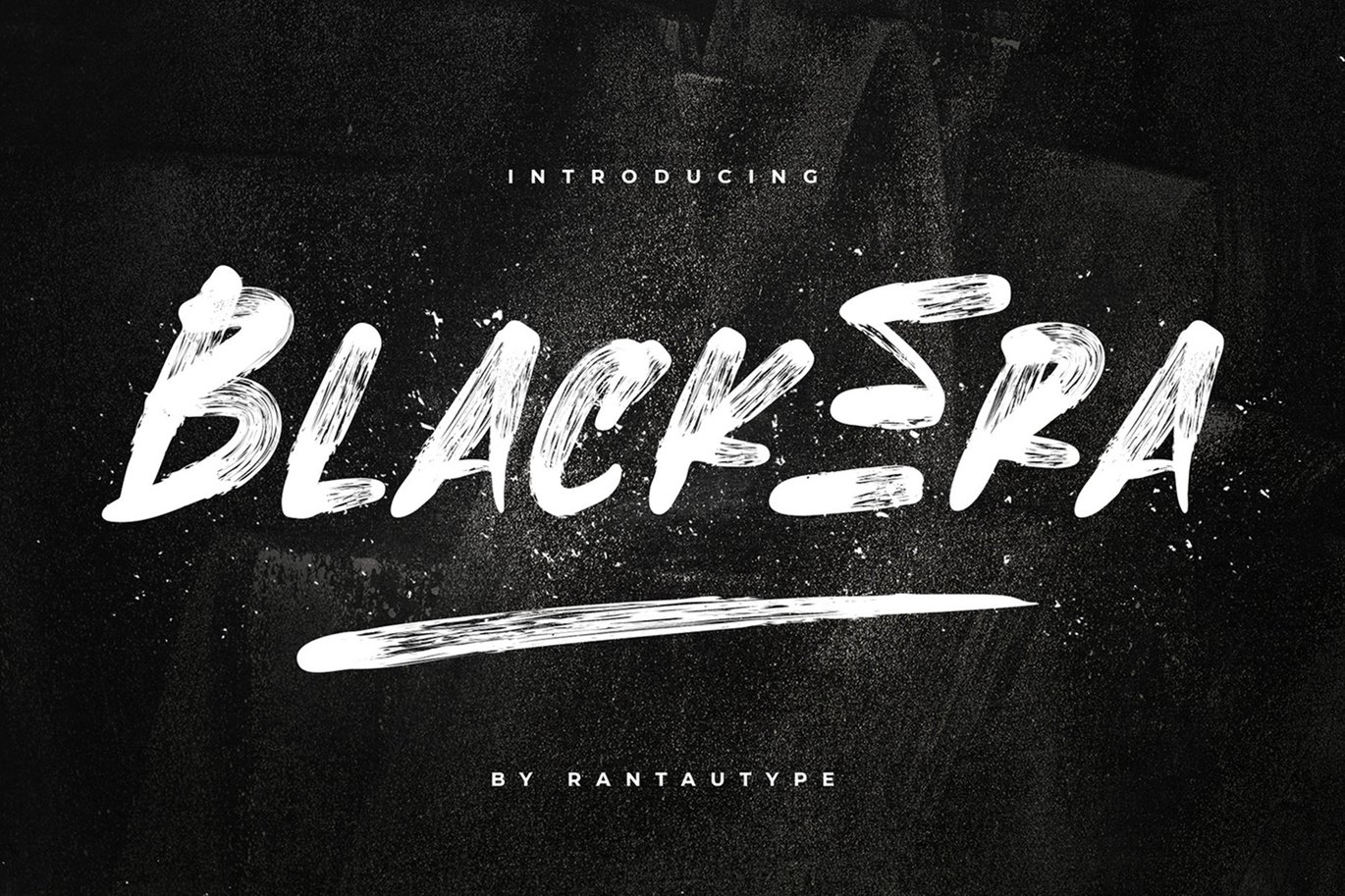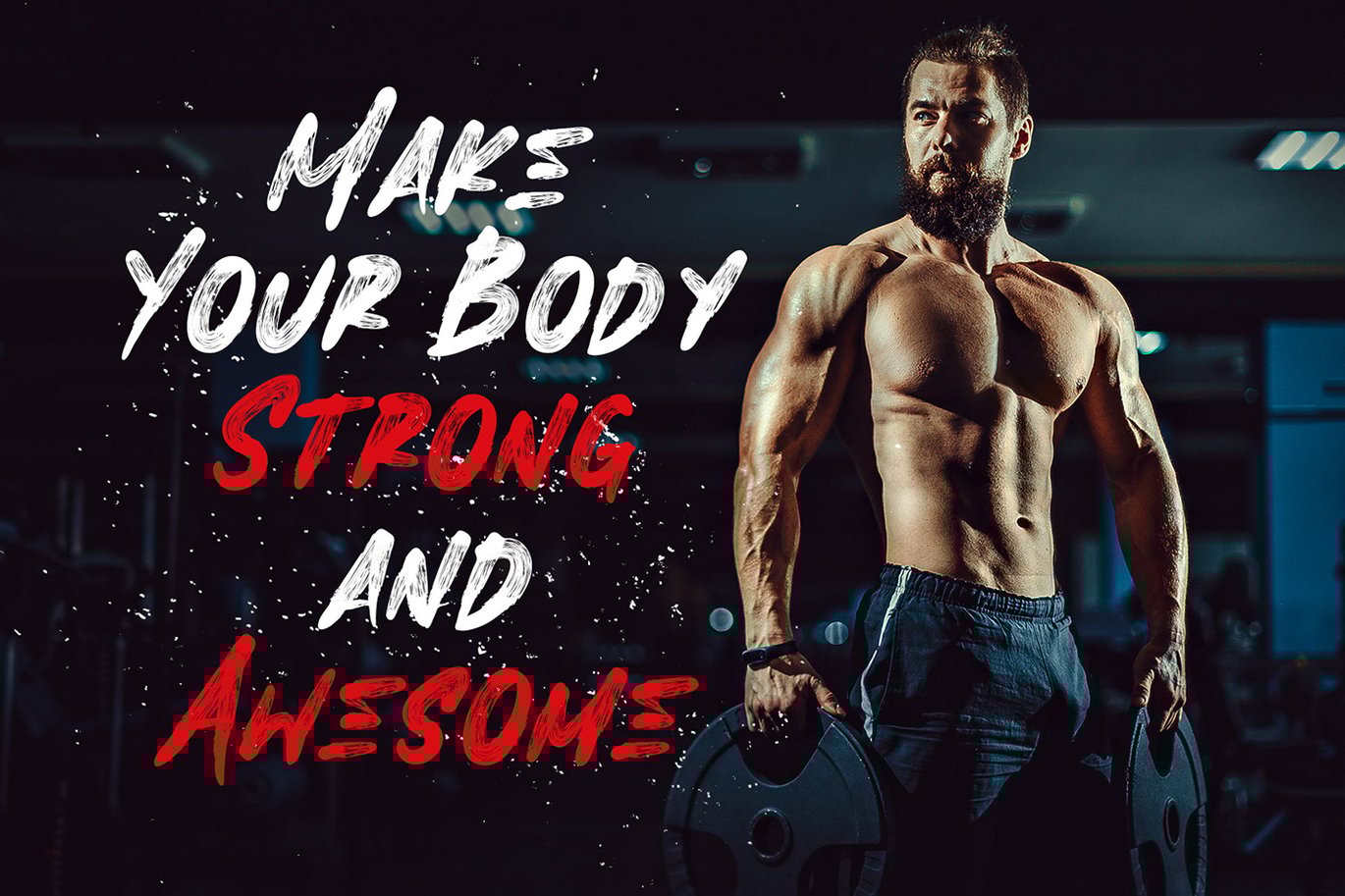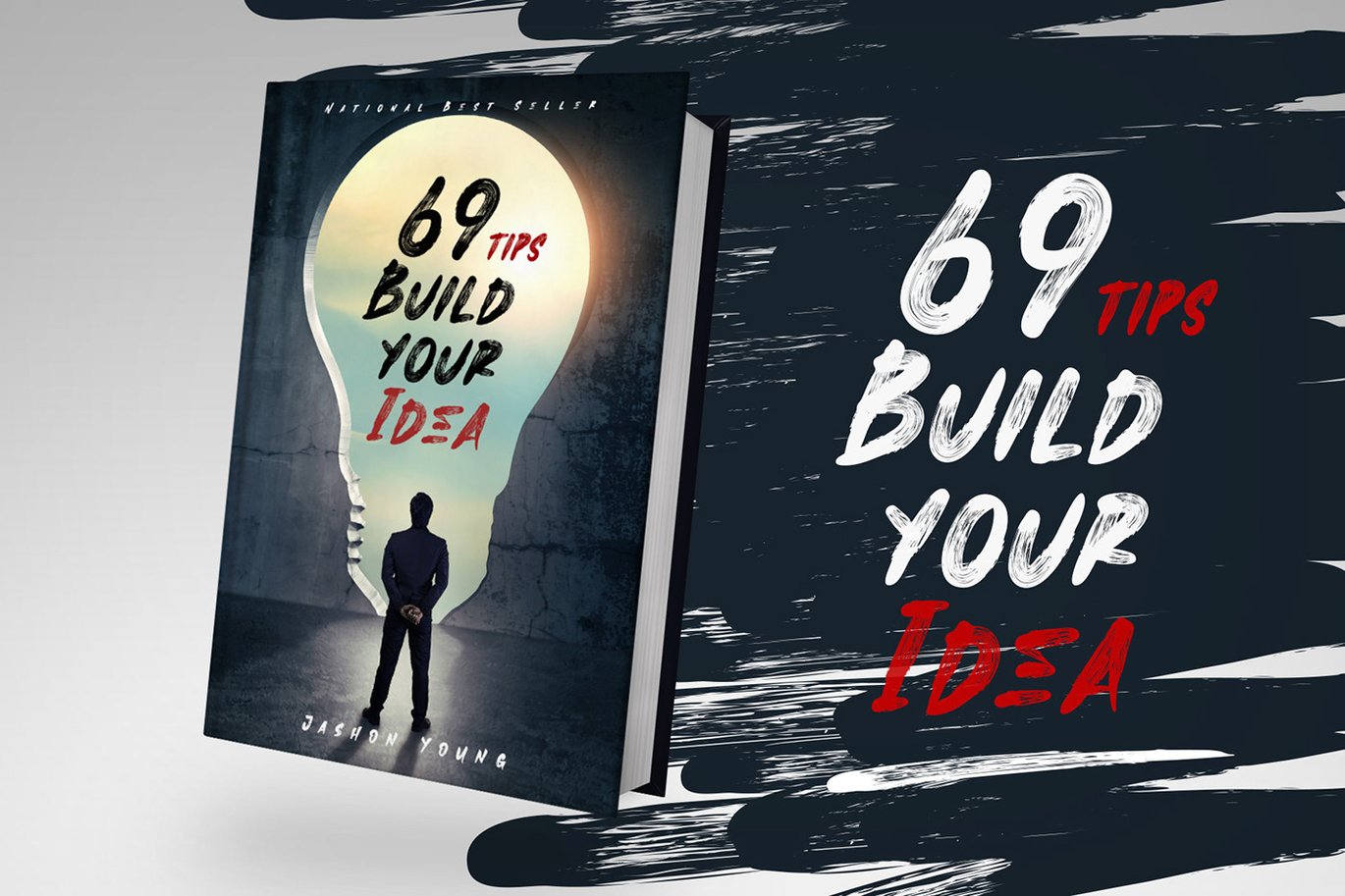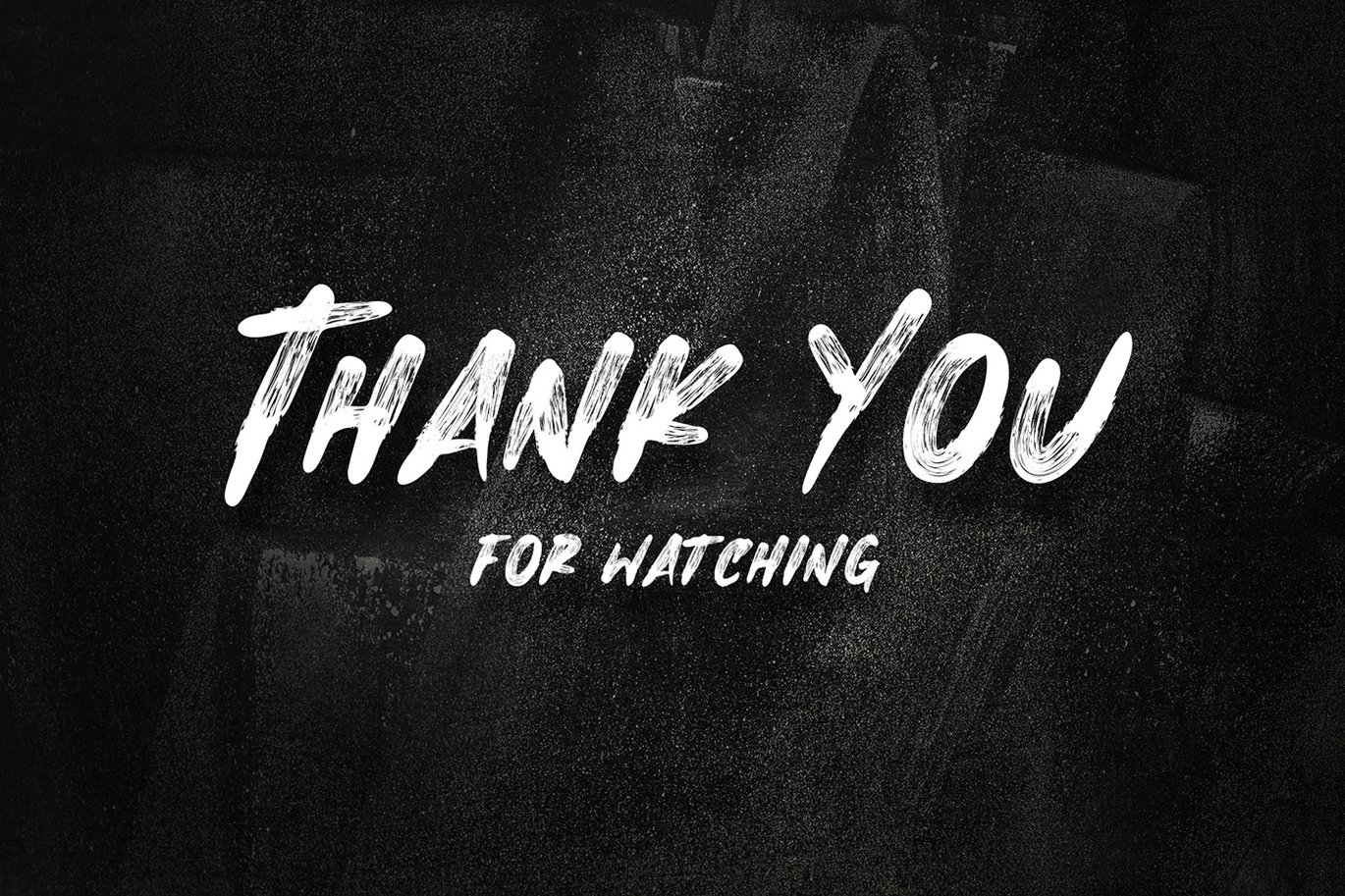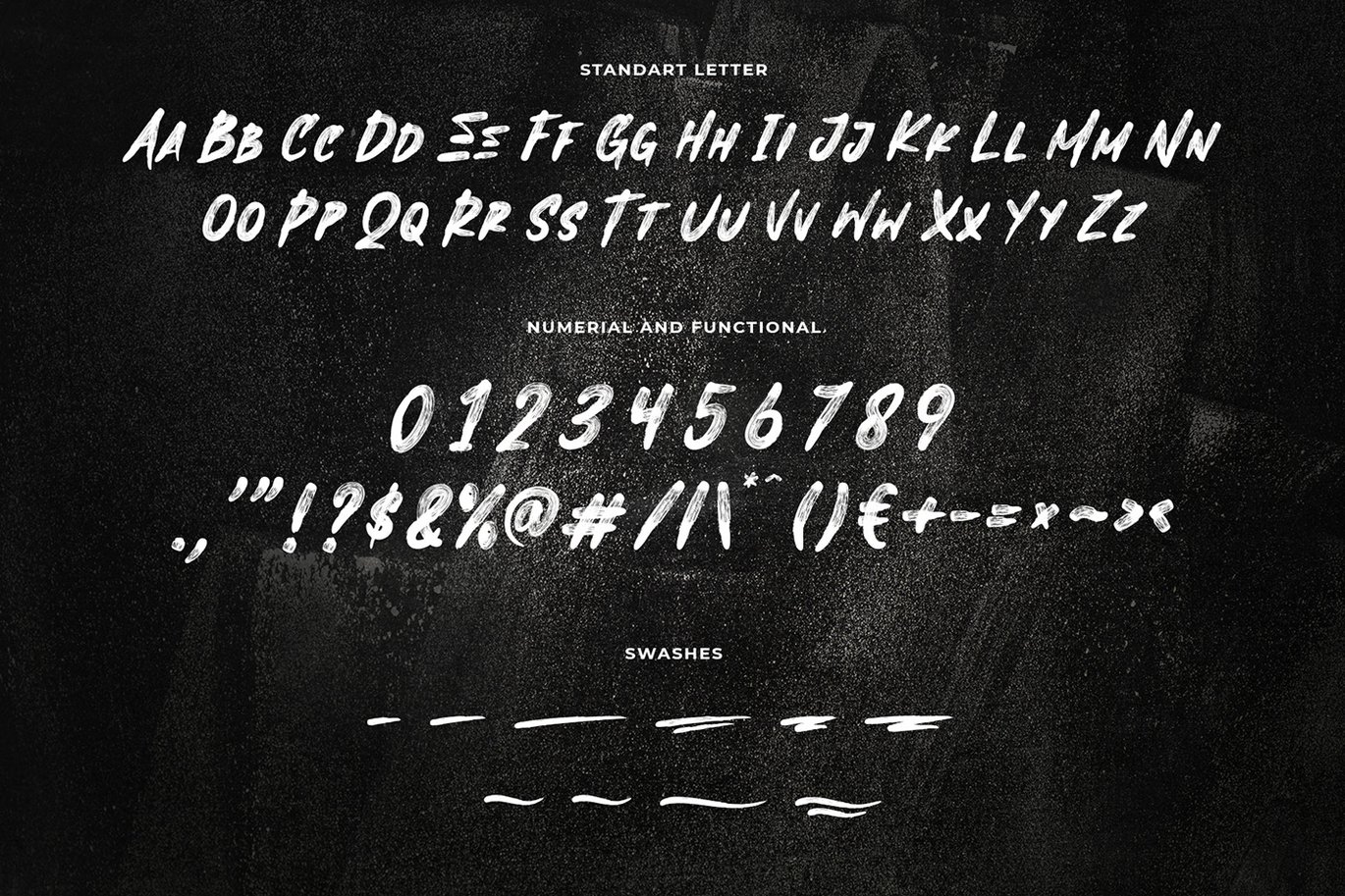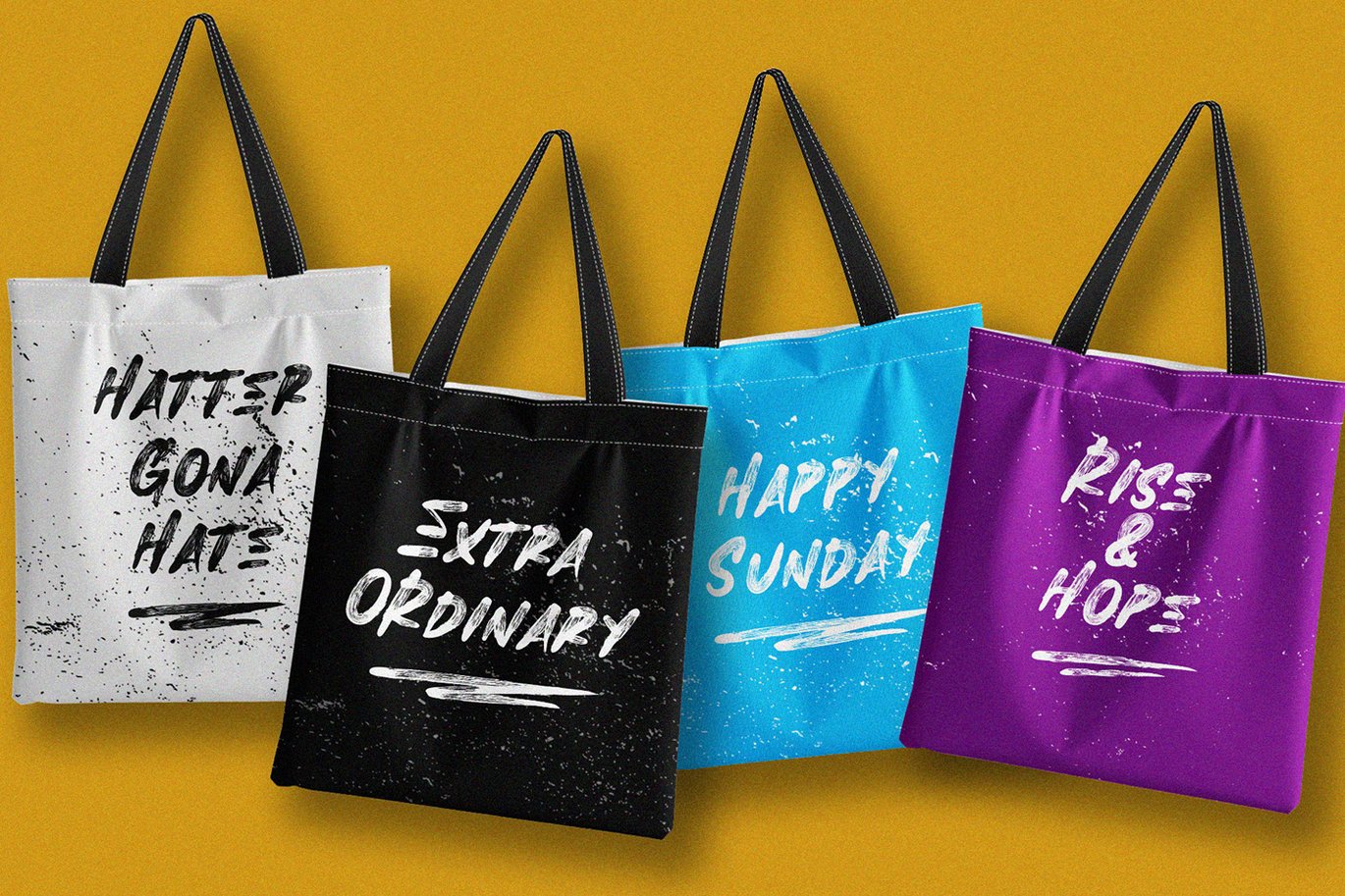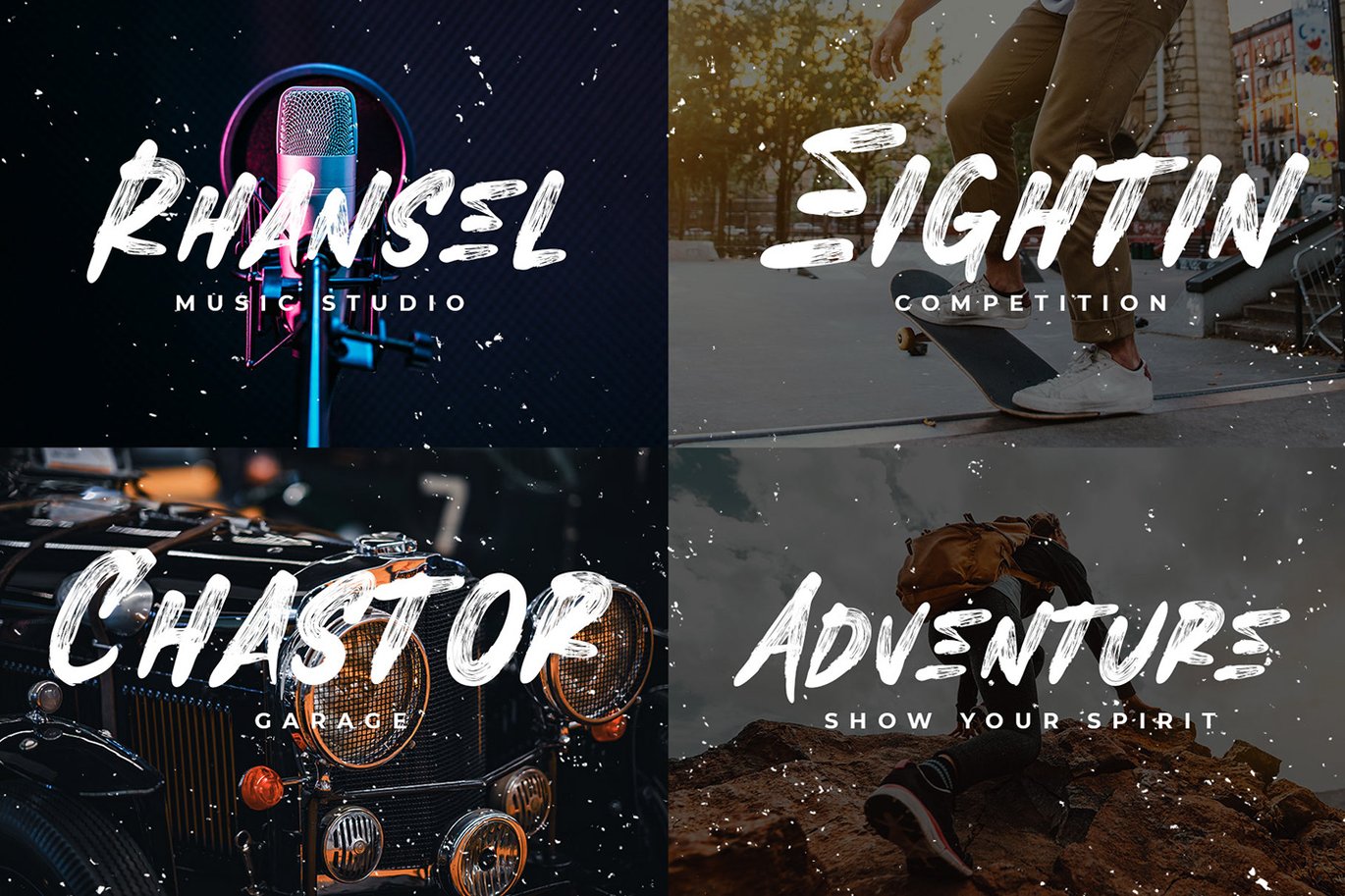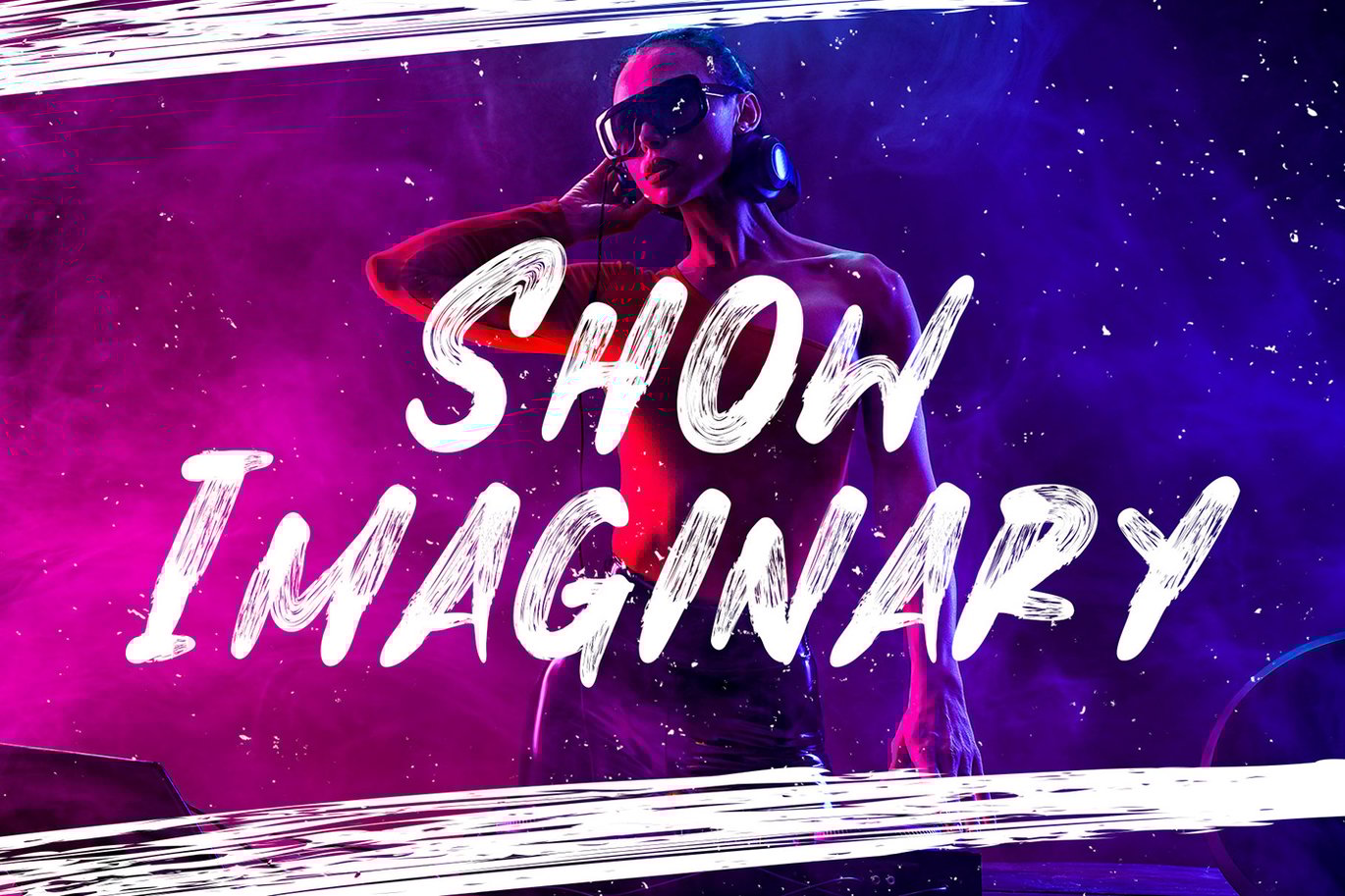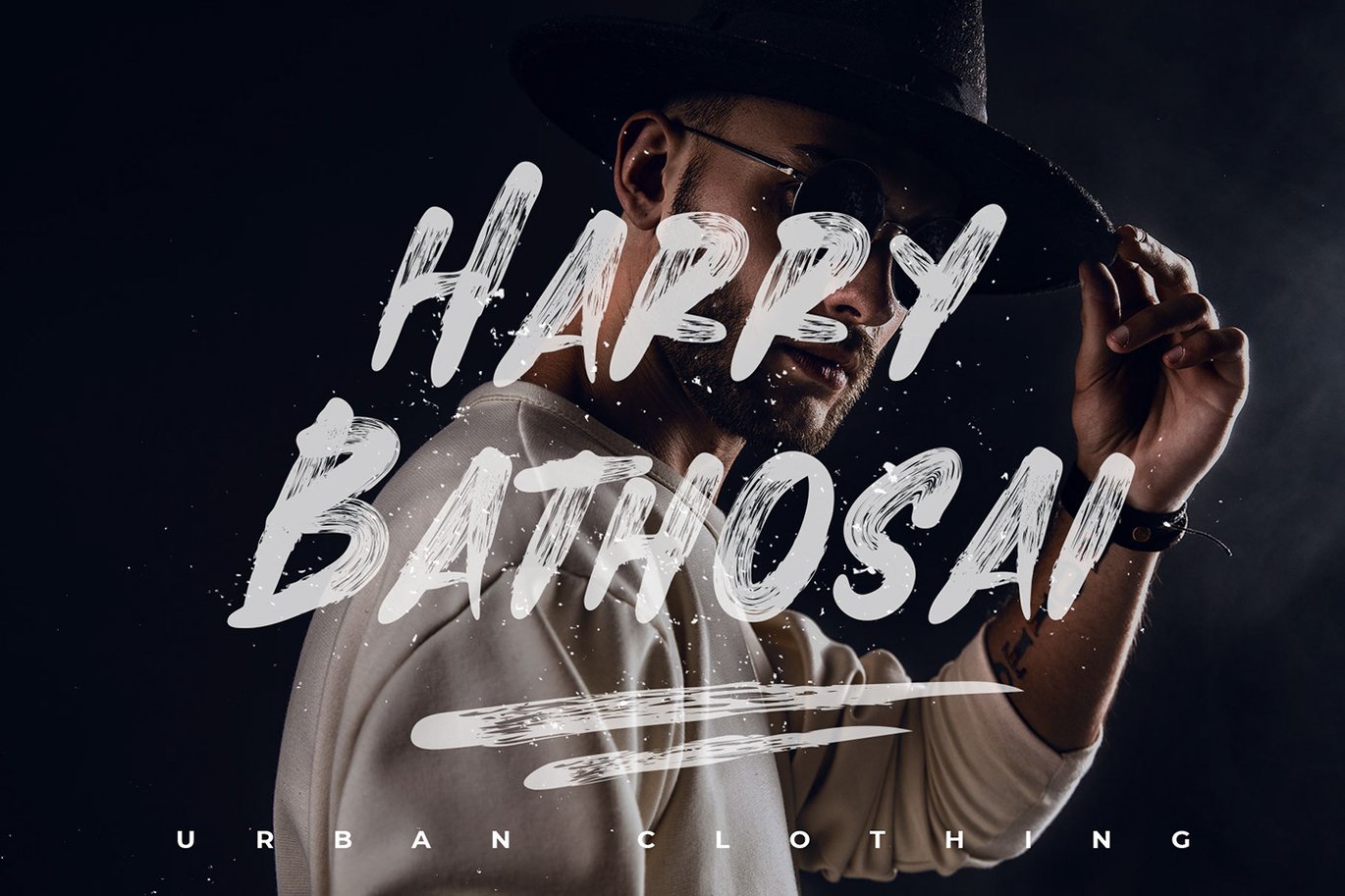
Black Era Brush Font
Proudly present  brush  font “BlackEra”.
This font is authentic hand brush imperfections. It has a perfectly paired complimentary marker font and a super handy set of bonus Swash. We keep this font looks modern, readable, stylish, strong, cool, bold, catchy and easy to use. BlackEra is the great choice for watermark on photography, logo design, quotes, album cover, magazine and many other design project. BlackEra here to make your work to high level!!!
- Standar character A-Z and a-z
- Numberial
- Functional
- Swash